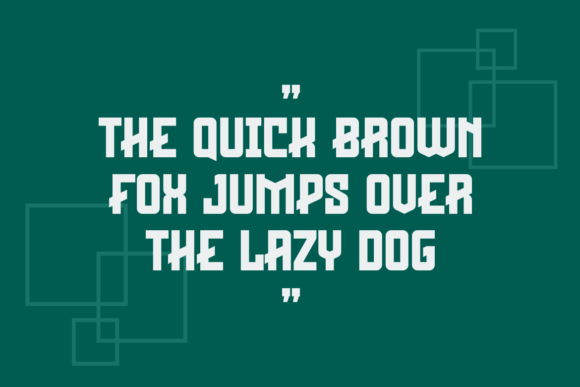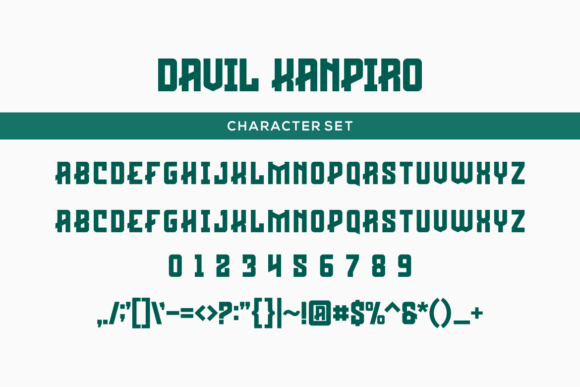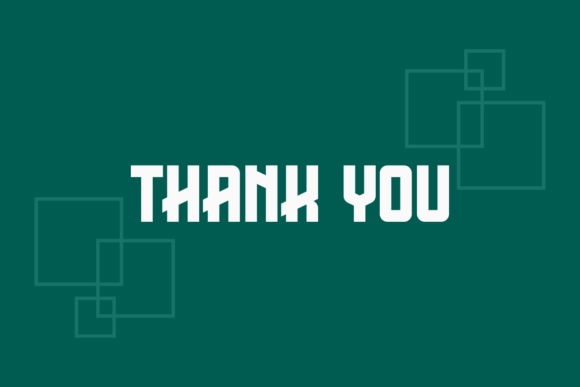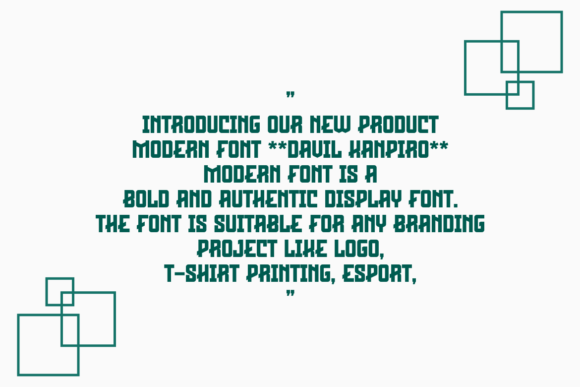
Introducing Davil Kanpiro Font: The Modern Display Font You Need
In the world of design, fonts play a crucial role in communicating a message effectively. A well-chosen font can elevate your brand’s identity and make it stand out from the crowd. Today, we’re excited to introduce Davil Kanpiro Font, a modern display font that’s perfect for designers, crafters, and branding enthusiasts. In this article, we’ll dive into the features and benefits of Davil Kanpiro Font and explore how it can enhance your design projects.
What is Davil Kanpiro Font?
Davil Kanpiro Font is a bold and authentic display font designed to make a statement. Its modern aesthetic and sleek lines make it perfect for a wide range of applications, from logos and branding to esport and advertising. This versatile font is suitable for various design projects, allowing you to express your creativity and showcase your brand’s personality.
Key Features of Davil Kanpiro Font
- Bold and Authentic: Davil Kanpiro Font boasts a bold and authentic style that’s sure to grab attention.
- Modern Aesthetic: Its sleek lines and modern design make it perfect for contemporary branding projects.
- Versatile: This font is suitable for various design applications, including logos, esport, advertising, and more.
- Easily Readable: Despite its bold style, Davil Kanpiro Font remains easily readable, even at smaller sizes.
Benefits of Using Davil Kanpiro Font
So, why choose Davil Kanpiro Font for your design projects? Here are some benefits you can expect:
- Enhance Your Brand’s Identity: With Davil Kanpiro Font, you can create a strong and recognizable brand identity that sets you apart from competitors.
- Increase Visibility: The bold and modern design of this font ensures that your message gets noticed, even in crowded markets.
- Flexibility: Use Davil Kanpiro Font across various design projects, from digital platforms to print materials.
- Time-Saving: With its easily readable style, you can save time and effort in designing and refining your text.
Who Can Benefit from Davil Kanpiro Font?
Davil Kanpiro Font is perfect for:
- Graphic Designers: Add a modern touch to your designs and create stunning visual content.
- Branding Enthusiasts: Establish a strong brand identity with a bold and authentic font.
- Esport Teams and Players: Elevate your gaming brand with a sleek and modern font.
- Advertisers and Marketers: Create eye-catching ads and promotional materials with Davil Kanpiro Font.
In conclusion, Davil Kanpiro Font is an exceptional modern display font that’s perfect for designers, crafters, and branding enthusiasts. Its bold and authentic style, versatility, and ease of readability make it an excellent choice for various design projects. Whether you’re looking to enhance your brand’s identity, increase visibility, or simply add a modern touch to your designs, Davil Kanpiro Font is the perfect solution.